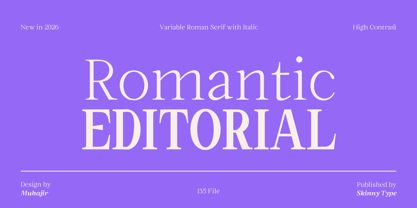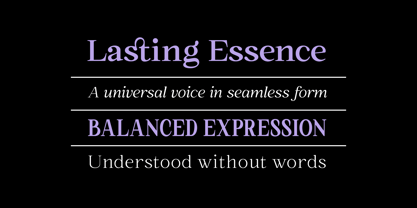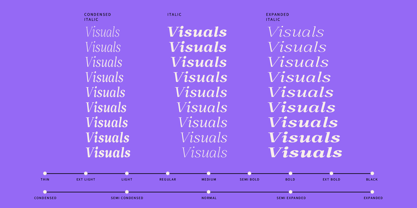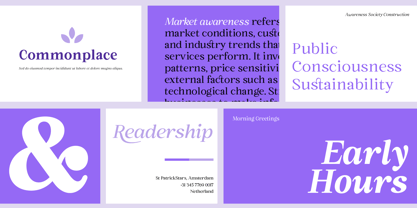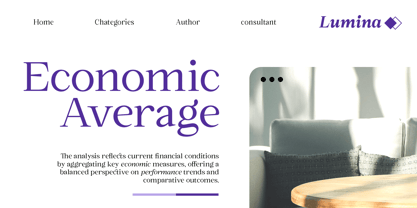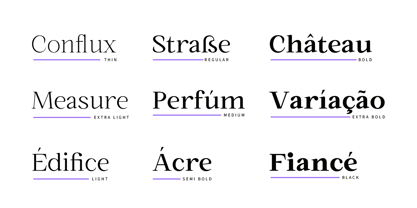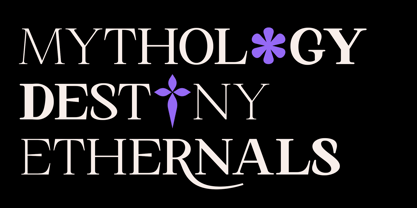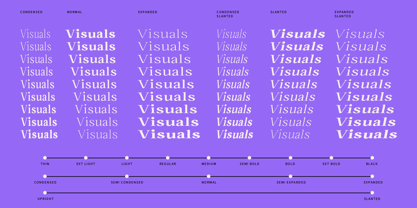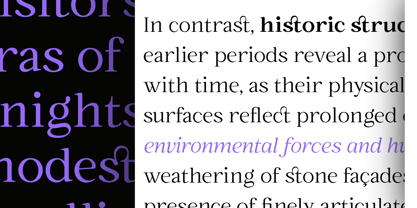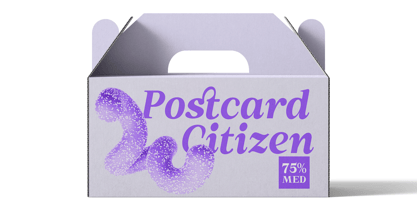
Romantic Editorial
by Skinny Type
The Romantic Editorial Font Family was designed by Muhajir and published by Skinny Type. Romantic Editorial contains 137 styles and family package options. More about this family
Romantic Editorial is a high-contrast variable Roman serif typeface designed for refined and luxurious editorial designs. Drawing inspiration from classic Roman letterforms and modern fashion typography, this typeface balances sharp, elegant serifs with smooth, flowing curves to create a romantic yet authoritative voice. This typeface is designed to display beautifully at large sizes, making it ideal for headlines, magazine layouts, branding, and premium visual identities. As a variable font, Romantic Editorial allows for seamless control over weight, allowing designers to easily transition from light and subtle expressions to bold and dramatic statements. The accompanying italic version features a graceful, calligraphic slant that enhances storytelling, emphasis, and expressive typography. Its high-contrast structure gives this font a luxurious editorial feel while still maintaining clarity and sophistication. Features Variable font system with adjustable weight and width axes Includes Roman & Italic styles High-contrast serif design for elegant display typography Carefully designed uppercase & lowercase letters with refined proportions Complete set of punctuation and typographic symbols Multilingual support for Latin-based languages Optimized for headlines, editorial layouts, and branding OpenType features such as stylistic alternates, ligatures, and smooth kerning, offering extensive flexibility for professional use
Romantic Editorial